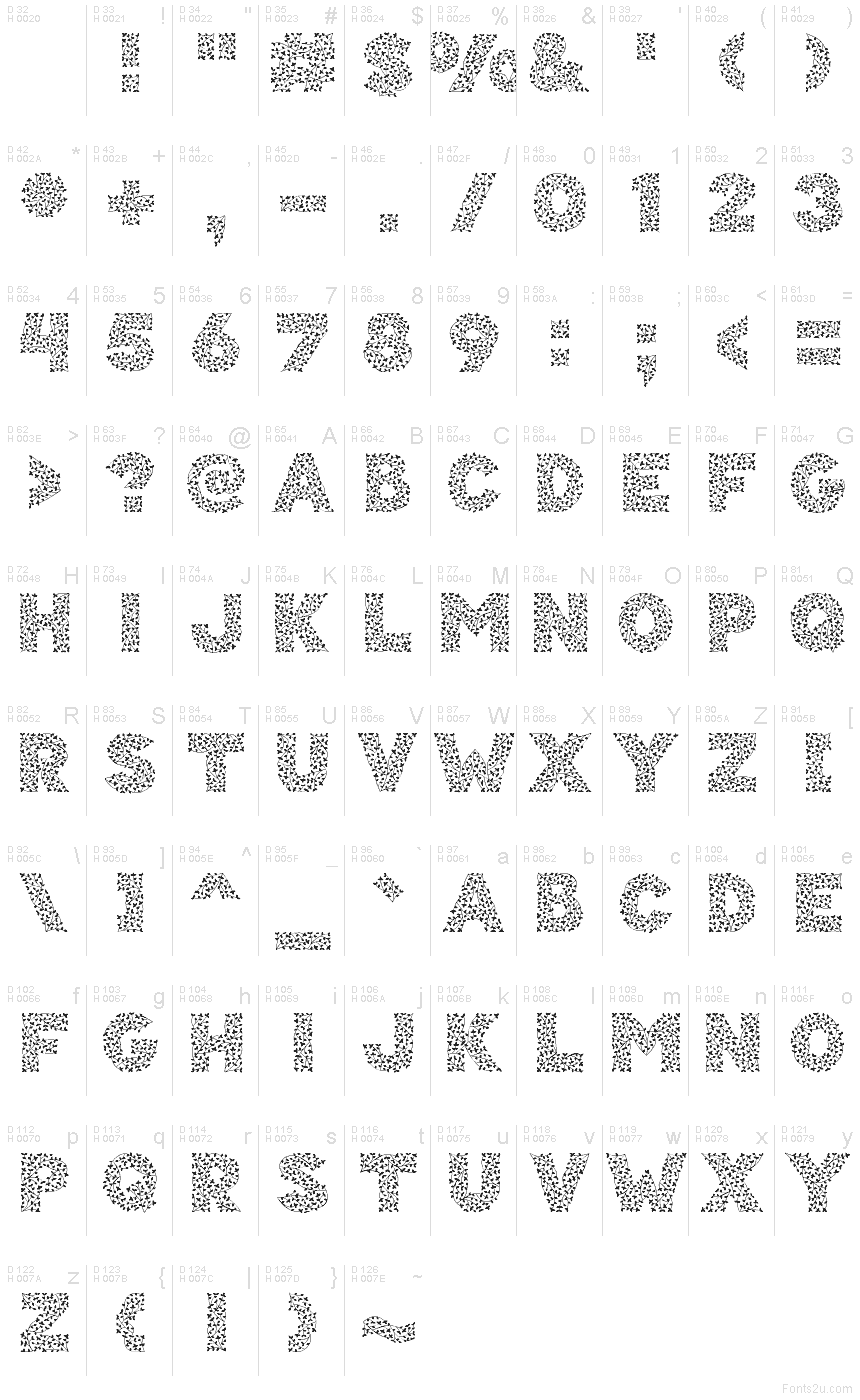
Herbaceous Border
Herbaceous Border font by Lauren Ashpole is a decorative display typeface inspired by the beauty and intricacy of nature. Ornamented with intricate details, this beautiful and creative font will add style, texture, and an organic feel to your designs. Its bold thickness ensures that each of the characters will stand out even on smaller-sized pieces.
Some ideas of where you can appropriately use this font include posters, greeting cards, logo designs, apparel items such as t-shirts, advertisements in printed form or online, book covers especially for those which cover natural topics or literary works like poetry or novels shorter in length than others might be more suitable given their style requirements; magazines also benefit greatly when utilizing Herbaceous Border fonts along with invitations sent out whether formal weddings are being planned or other celebratory events take place frequently enough so everyone involved enjoys themselves fully!